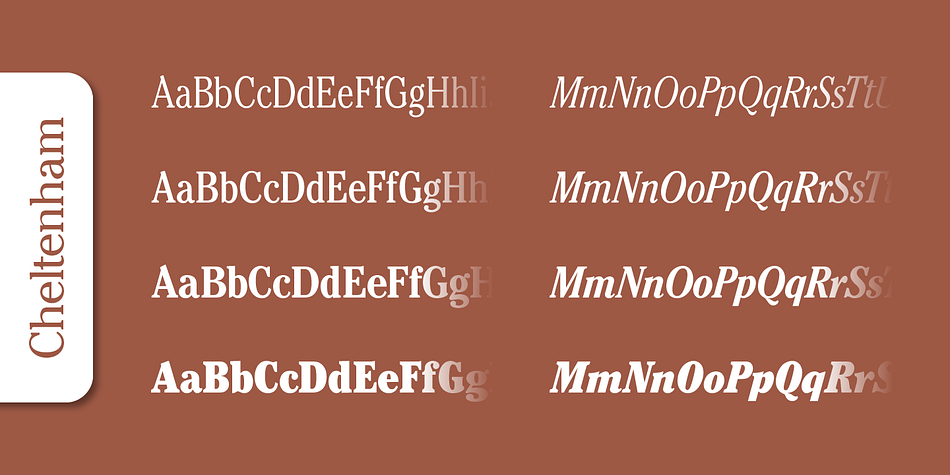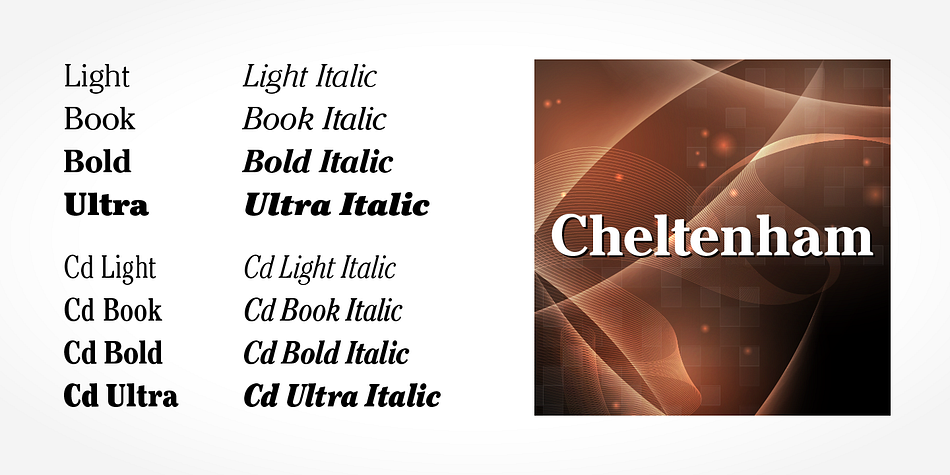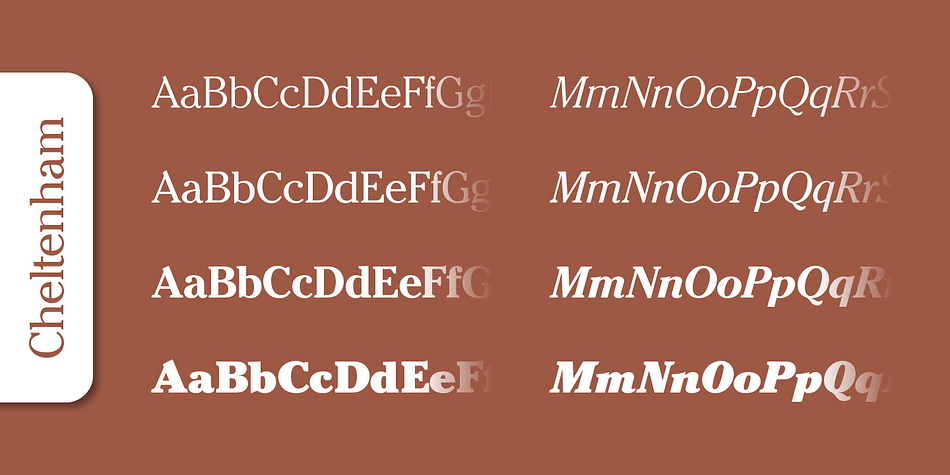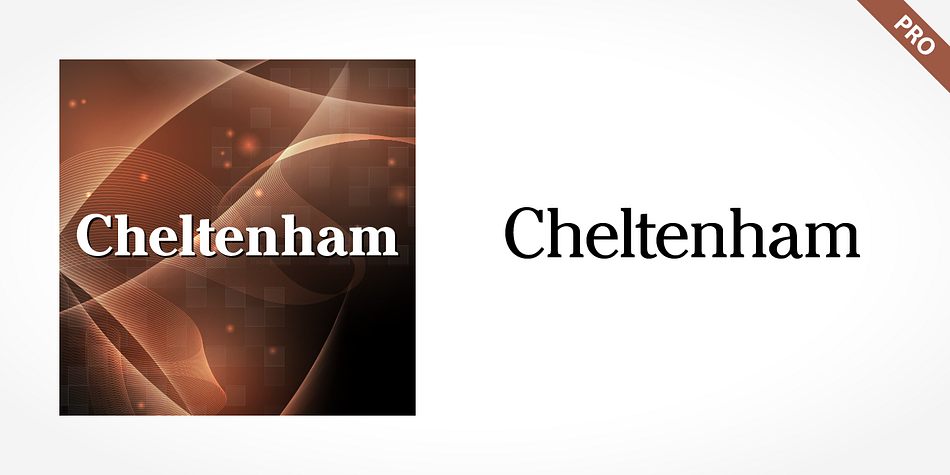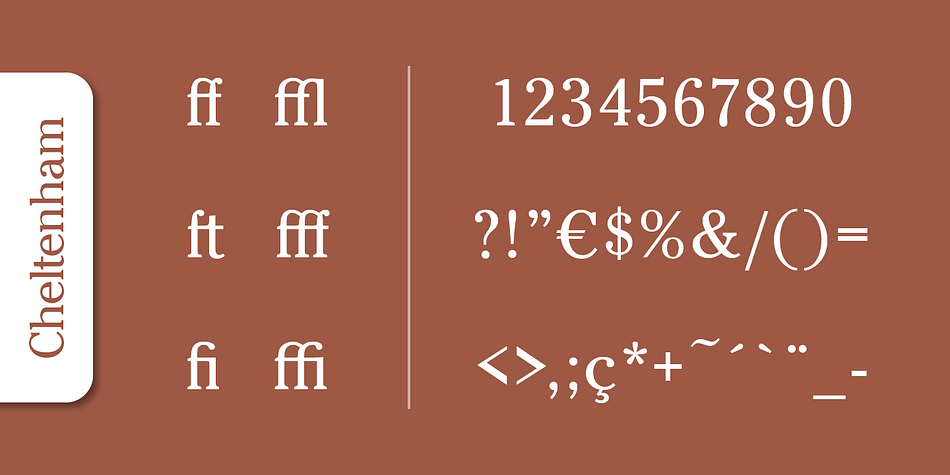
Cheltenham Pro is a serif font family. This typeface has sixteen styles and was published by SoftMaker.
Where most typefaces are designed by just one individual, quite a few people have been involved in perfecting Cheltenham over the times. In 1896, the architect Bertram Grosvenor Goodhue created the initial design for Ingalls Kimball at the Cheltenham Press. Just a few years later, Morris Fuller Benton devised a full family of Cheltenhams for ATF. This is the basis of the design we have today.
In 1975, Tony Stan revived this classic typeface and did what was customary at the time: increase the x-height and make the Cheltenham family more regular. SoftMaker updated the design yet again in 2012. The result is Cheltenham Pro, a typeface that is exceptionally readable and holds up even in adverse printing conditions.
SoftMaker’s Cheltenham Pro typeface family contains OpenType layout tables for sophisticated typography. It also comes with a huge character set that covers not only Western European languages, but also includes Central European, Baltic, Croatian, Slovene, Romanian, and Turkish characters. Case-sensitive punctuation signs for all-caps titles are included as well as many fractions, an extensive set of ligatures, and separate sets of tabular and proportional digits.